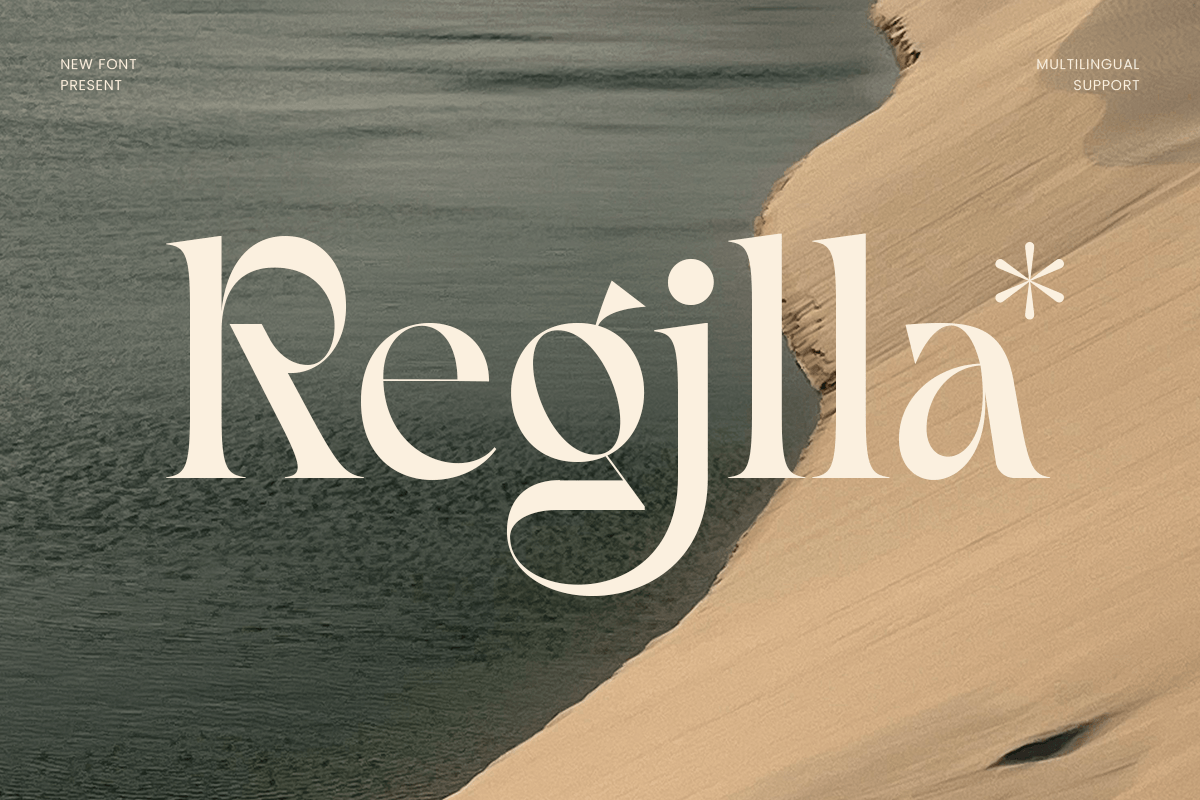
Regilla
-Modern Classy Logo Serif Font
Regilla - Modern Classy Logo Serif Font
Regilla is a modern classy logo serif font crafted to deliver refined elegance with a confident, premium tone. Its polished serif structure and balanced proportions create a sophisticated look that feels timeless, upscale, and perfect for high-end brand identities.
Designed for branding-focused typography, Regilla works beautifully across logos, wordmarks, boutique identities, editorial headlines, product packaging, website headers, posters, signage, and social media visuals. The classy serif character helps your typography feel professional and luxurious while staying clean and readable across both digital and print layouts.
Whether you’re building a boutique brand, elevating a premium product line, or designing modern editorial visuals, Regilla provides a stylish serif voice that makes every word look intentional and memorable.
Inspiration Behind Regilla
Regilla is inspired by modern luxury branding and editorial typography—where clean structure, elegant proportions, and classy serif details create a premium impression. Built to support sophisticated identity systems, it’s ideal for refined logos and modern headlines that need timeless presence with contemporary polish.
Regilla Font Features
• Modern classy serif letterforms with premium logo presence
• Designed for branding systems, wordmarks, and editorial headlines
• Strong readability for display typography and brand statements
• Luxury logos and classy brand identity systems
• Boutique branding, premium packaging, and product labels
• Editorial headlines, magazine covers, and lookbooks
• Website headers, banners, and social media campaigns
• Posters, signage, and modern promotional layouts
Elevate premium branding with Regilla—crafted for modern classy serif logos with timeless elegance. ✨